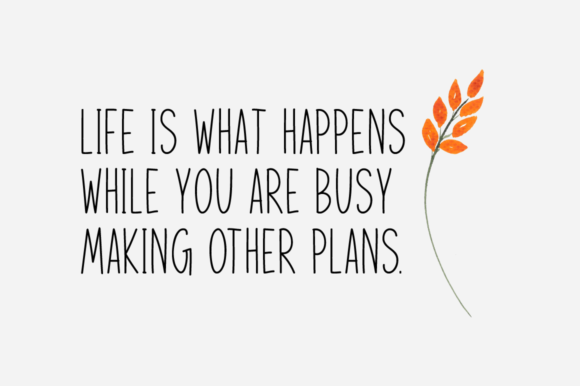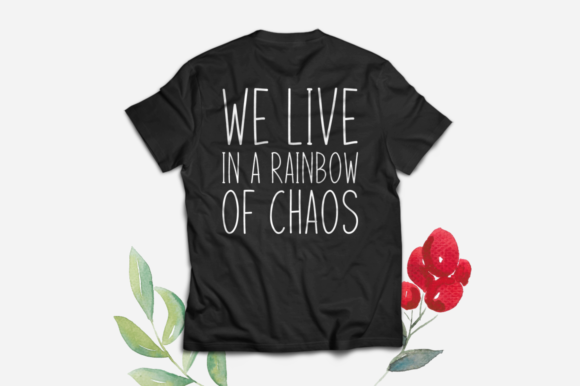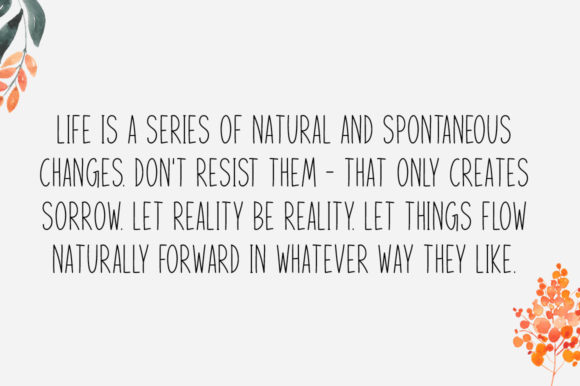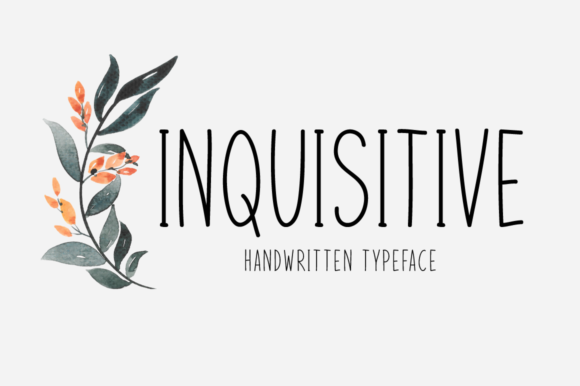
Introduction to Inquisitive Font
Inquisitive is a thin and dainty handwritten font that can be used for all chalkboard quotes or teaching material.
Its authentic look and feel will add a personal and realistic feel to your designs .
Key Features of Inquisitive Font
Why Choose Inquisitive Font?
Inquisitive Font offers exceptional quality and versatility, making it a valuable addition to your design toolkit. Whether you’re creating for personal projects or commercial use, Inquisitive Font delivers professional results.